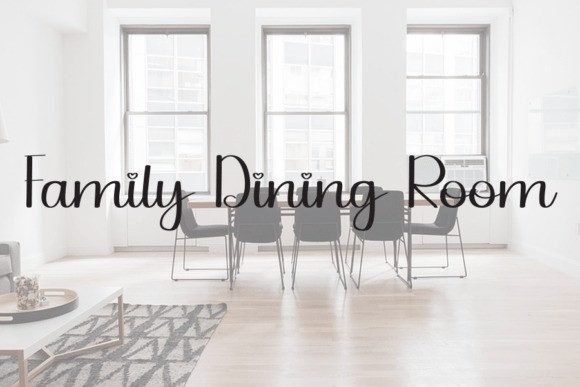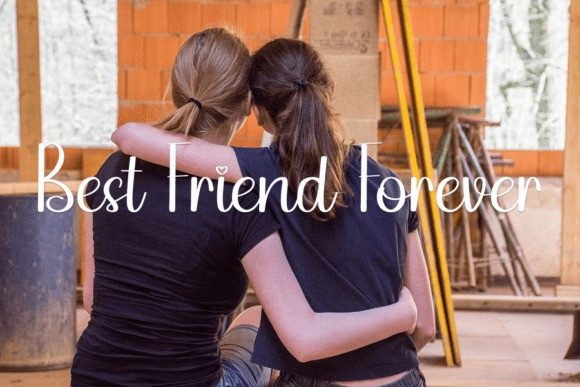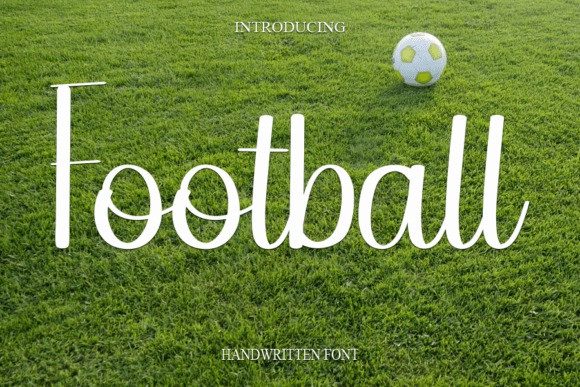
Football Script Font
Football Script Font is a trendy handwritten font with a contemporary atmosphere and impeccable form, inspired by timeless classic calligraphy. It will add elegance and class to any of your design projects.